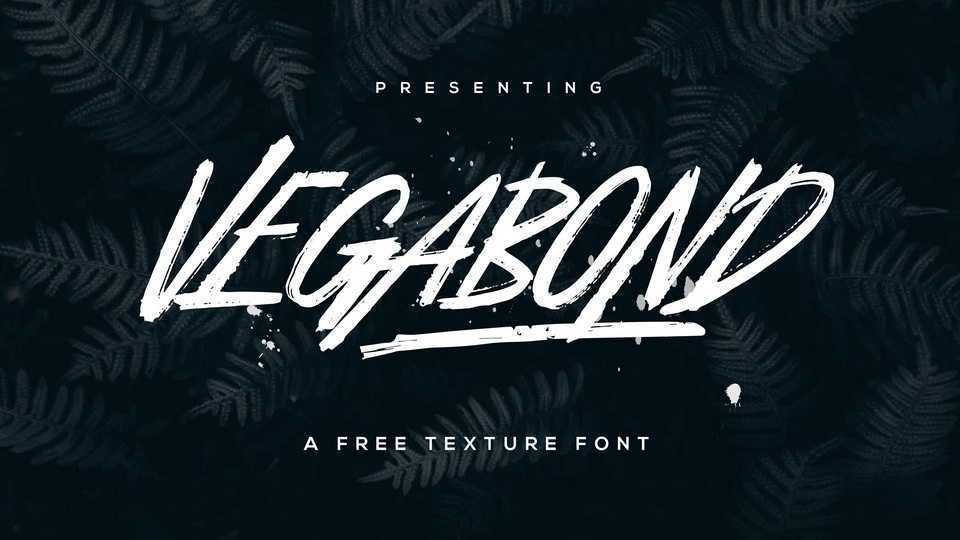
Download Vegabond font, a bold brush typeface with a handmade texture which add an authentic touch. Vegabond is ideal for headings, flyers, greeting cards, product packaging, book covers, printed quotes, logotype, album covers, and even for cool graffiti.